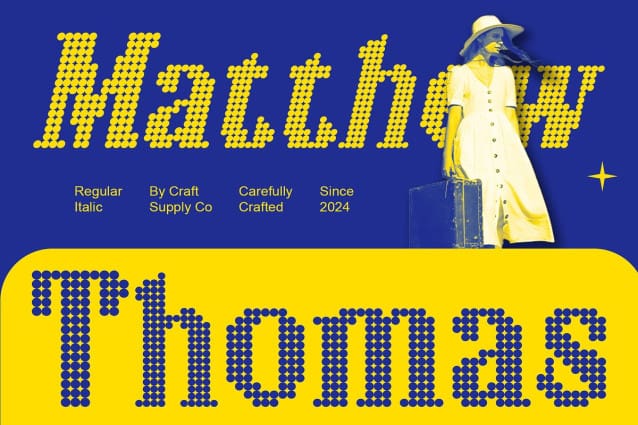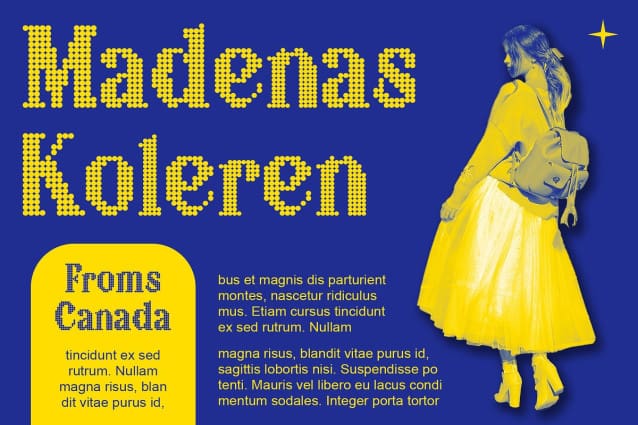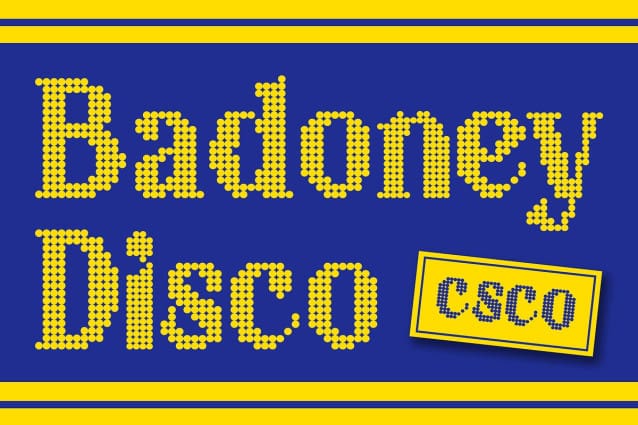
Badoney Disco Font
Badoney Disco Font is a stylish serif font with a twist, featuring a unique dot pattern that adds a touch of disco vibes to its traditional serif style. With its eye-catching display, this font is perfect for projects that need a blend of sophistication and playfulness.
With its normal width, This font offers versatility for various design applications. Whether you’re creating headlines, banners, or logos, this font provides the perfect balance of style and functionality.
Whether you’re designing a poster for a retro dance party or creating packaging for a disco-inspired product, This font is sure to captivate your audience. Its stylish design and unique dot pattern make it perfect for creating displays that demand attention.
Despite its playful appearance, This font is easy to use and works well in both large and small sizes. The font can be used for a wide range of projects, adding a touch of retro charm to any design.